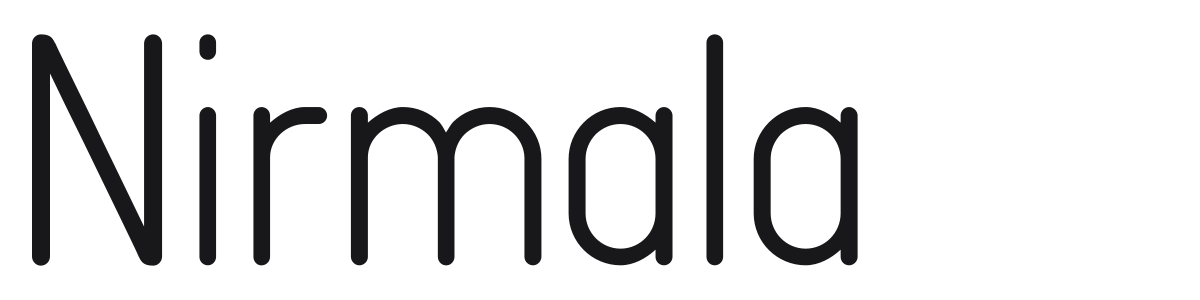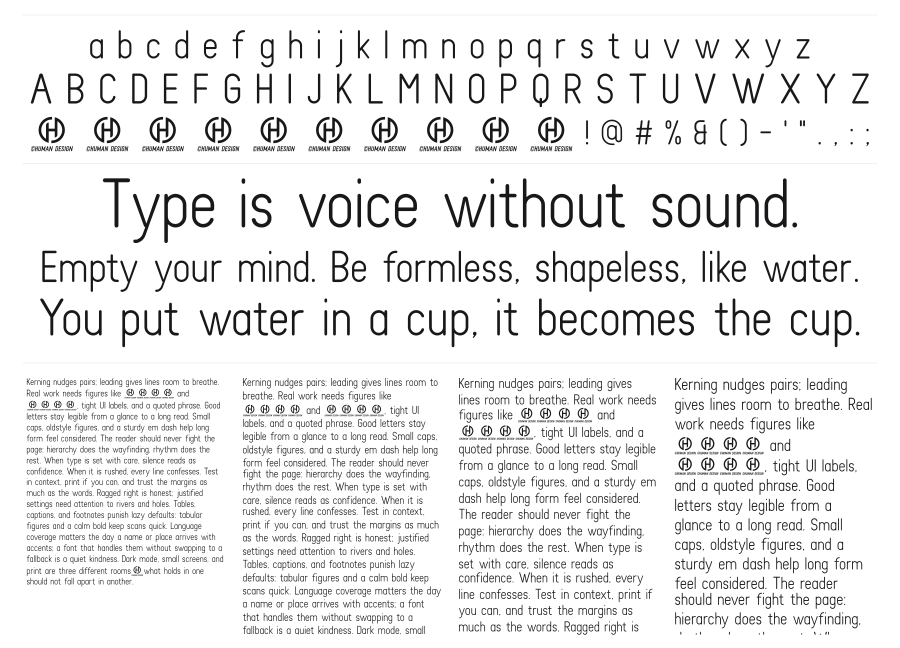
Nirmala
by Human Design
Nirmala is a light geometric sans-serif with softly rounded terminals and wide, open proportions. The near-monoweight strokes and circular bowls give it a calm, contemporary feel that sits comfortably between the precision of Futura and the warmth of a humanist sans. It works across branding, editorial layouts, and packaging where a clean but approachable voice is needed.